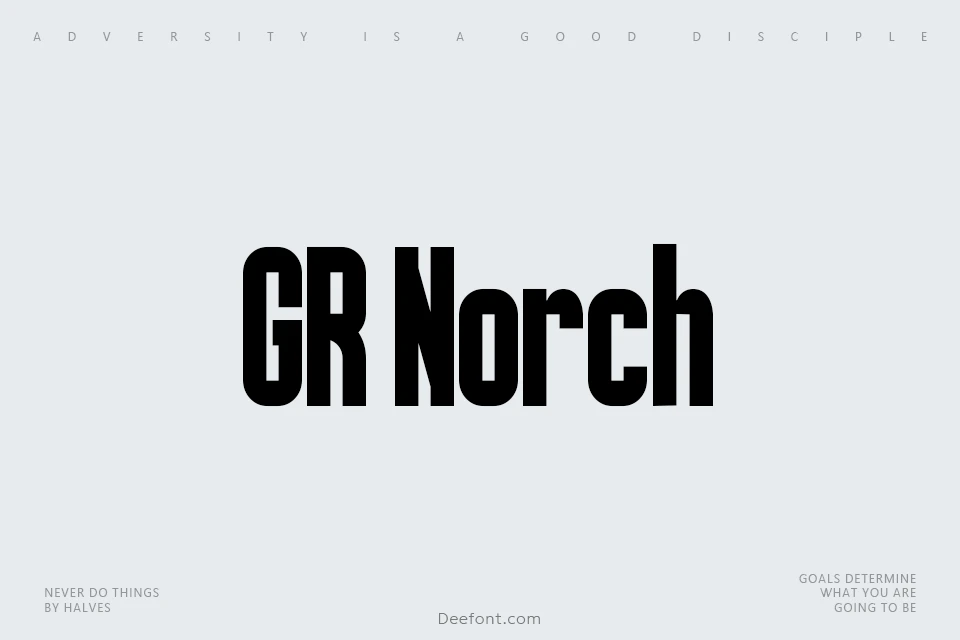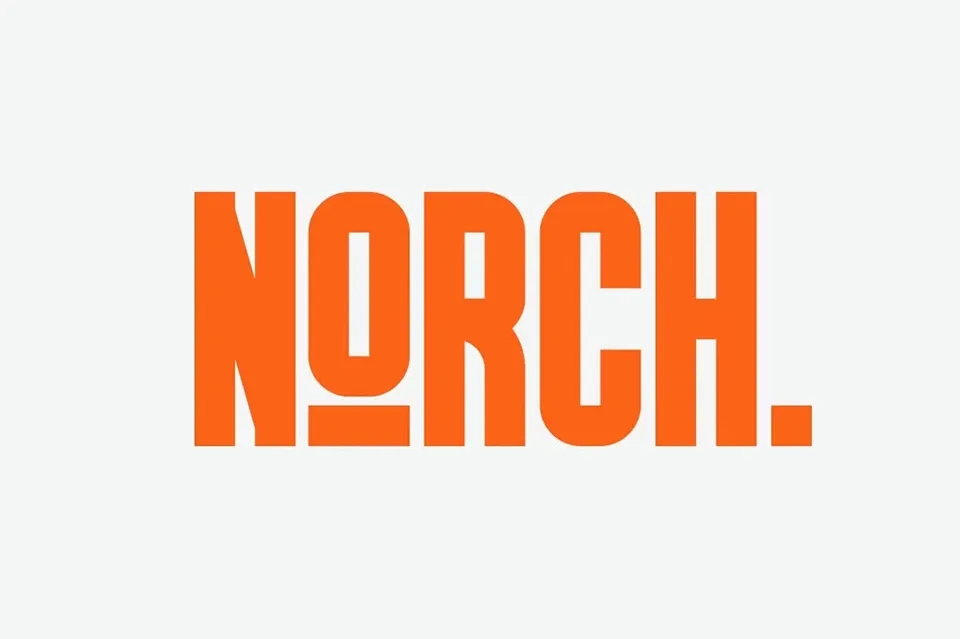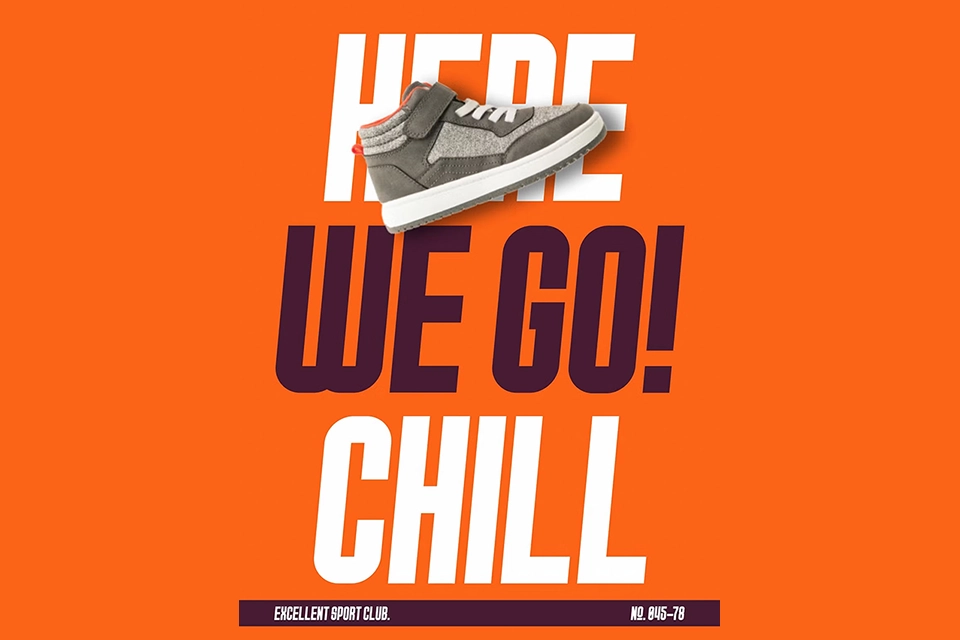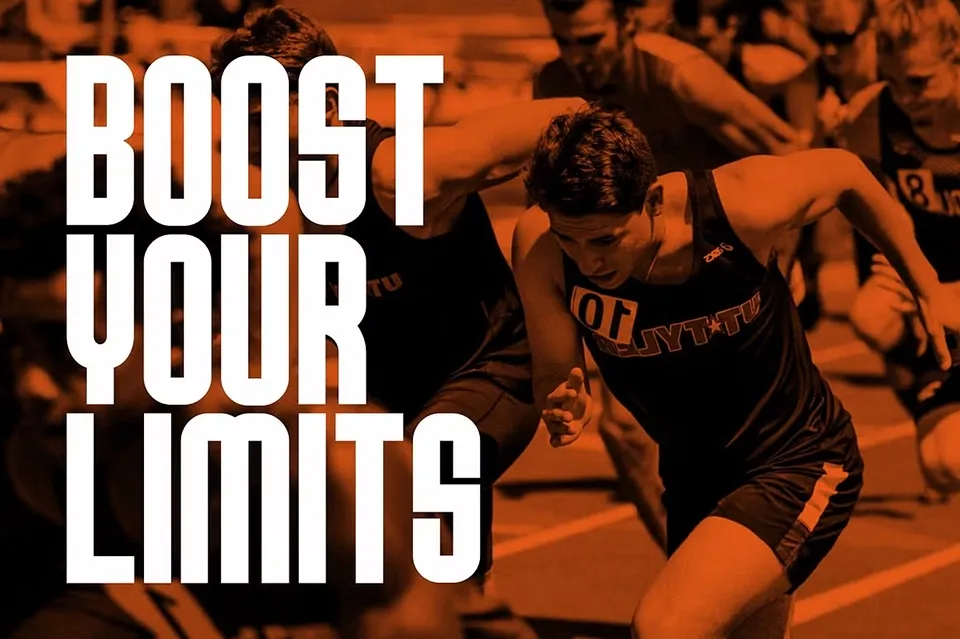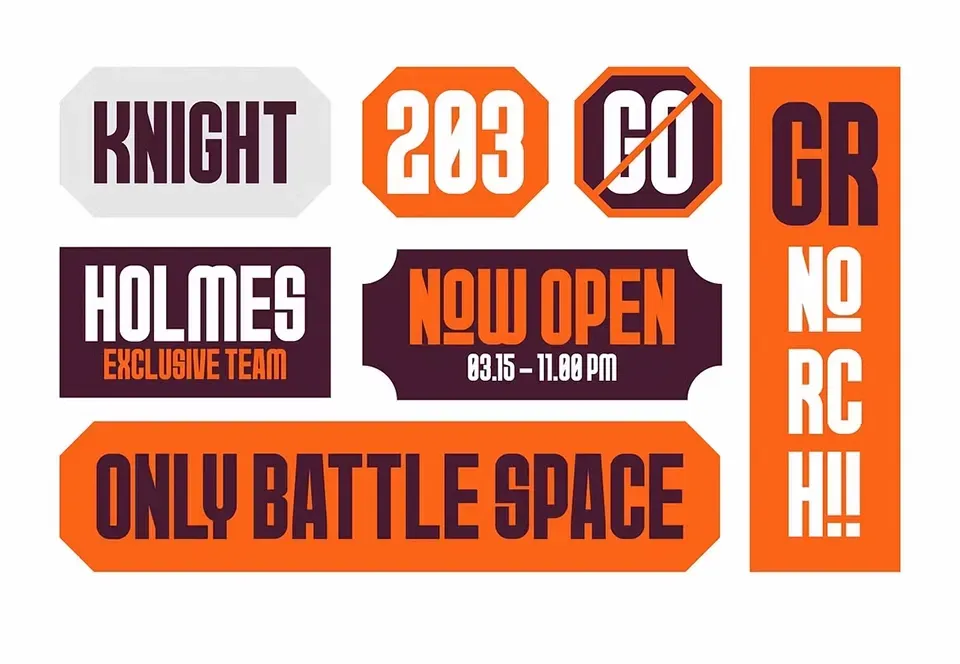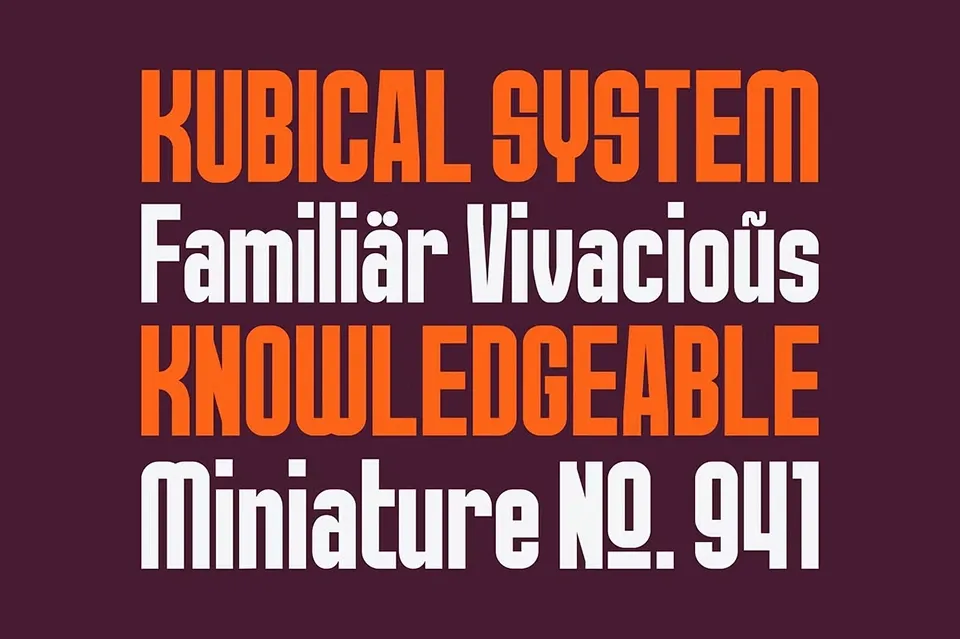
GR Norch Font
GR Norch Font is a simple and casual sans serif typeface designed by Garisman Studio. With its undeniably clean feel and modern geometric shapes, this font is perfect for a wide range of creative projects, from logos and headlines to sports-themed designs. Its bold presence and neat structure make it highly legible and versatile for both digital and print use.